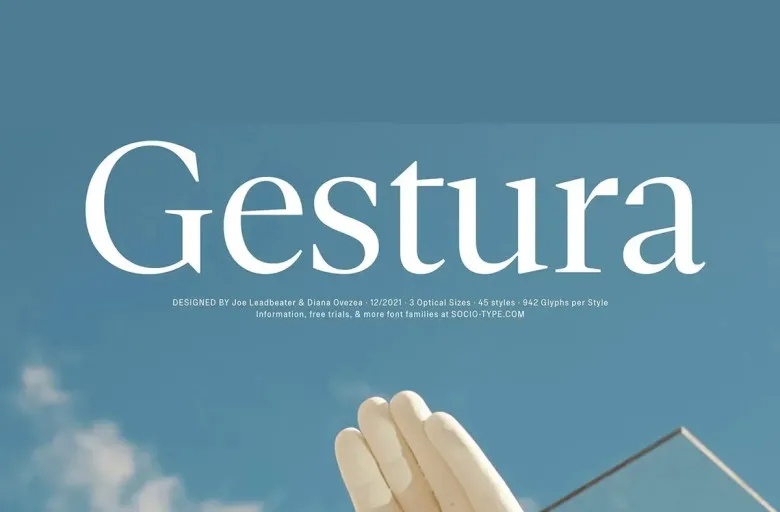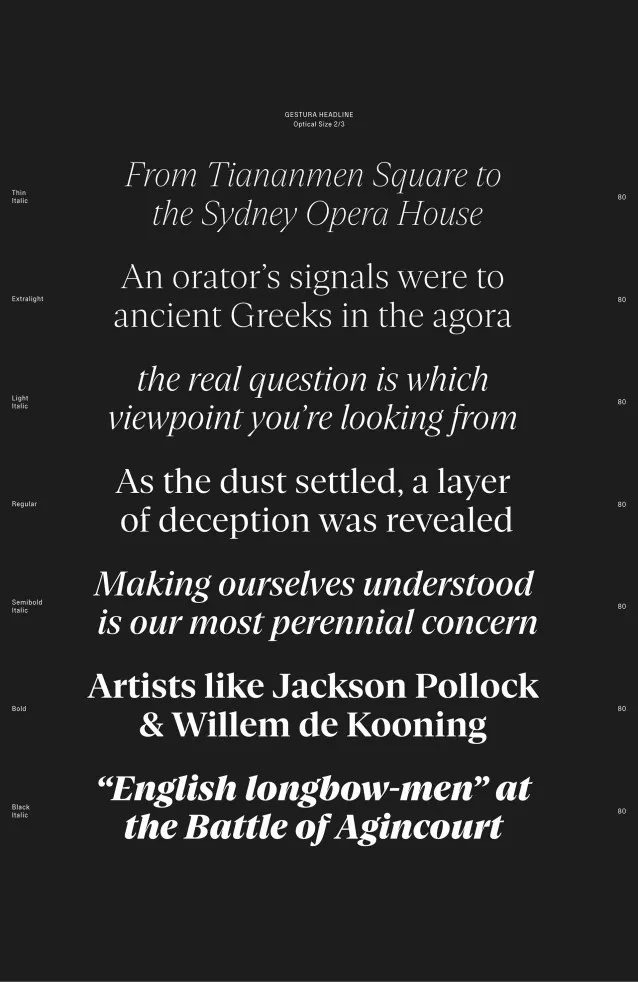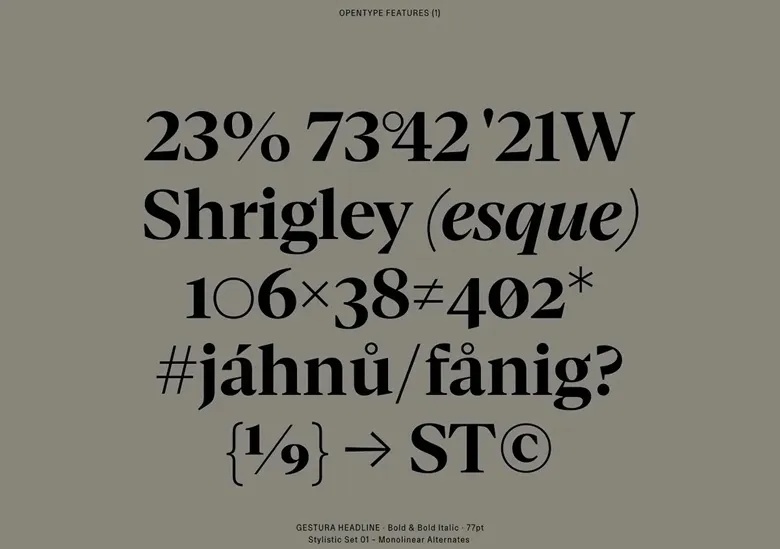
Gestura Font Family
Gestura is an elegant serif typeface that beautifully captures the refined typographic techniques of past centuries. Rooted in the 16th-century old-style tradition, Gestura draws inspiration from Gros Cicero by Robert Granjon. It also reflects the influence of notable revivals such as Matthew Carter’s Galliard and Monotype’s Plantin.
Upon closer inspection, Gestura’s counter proportions lean more closely toward Granjon’s original model. At the same time, subtle minimalist details evoke a more contemporary aesthetic—echoing the reductive forms found in Plantin.
Gestura Serif Font Family